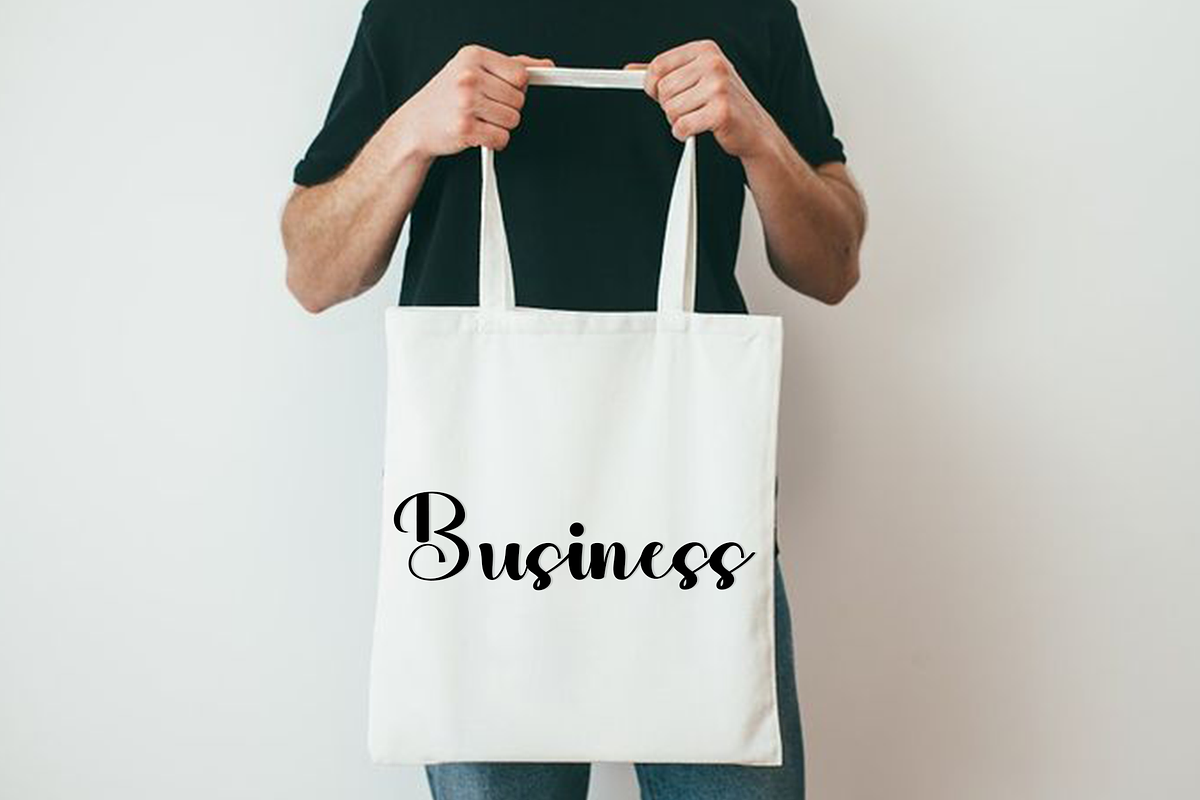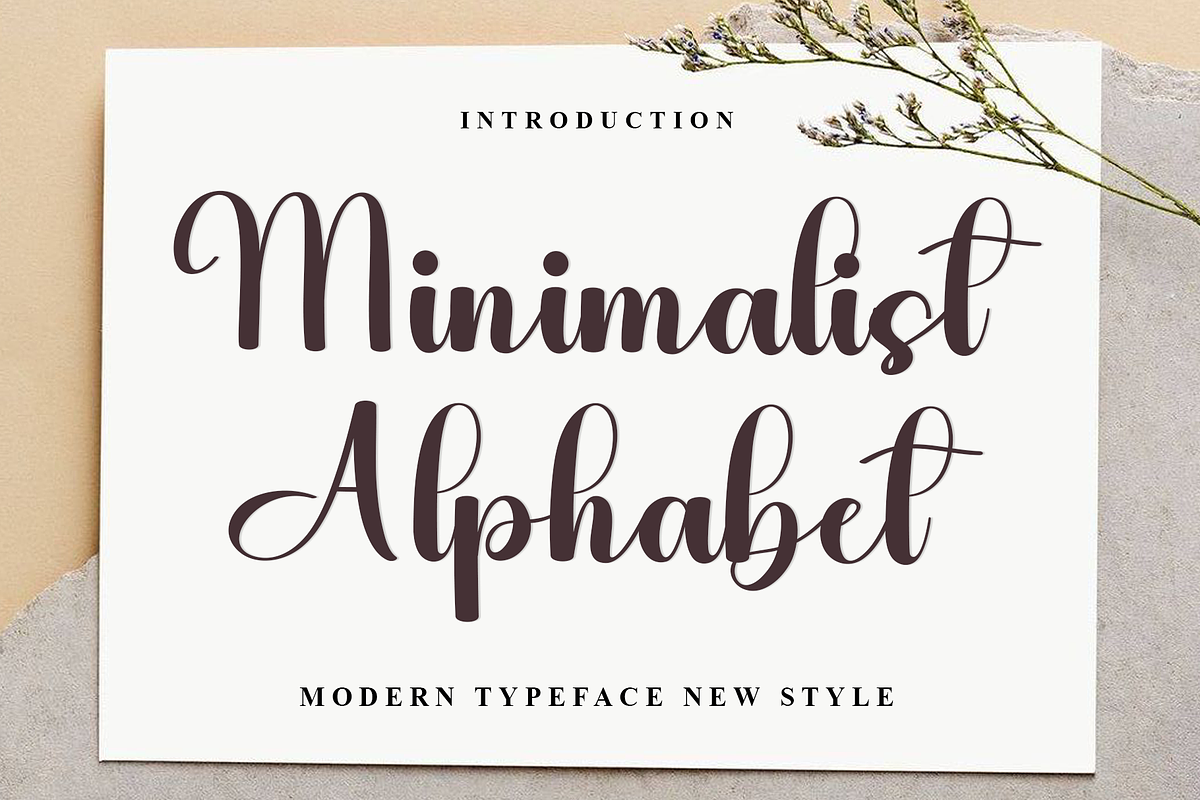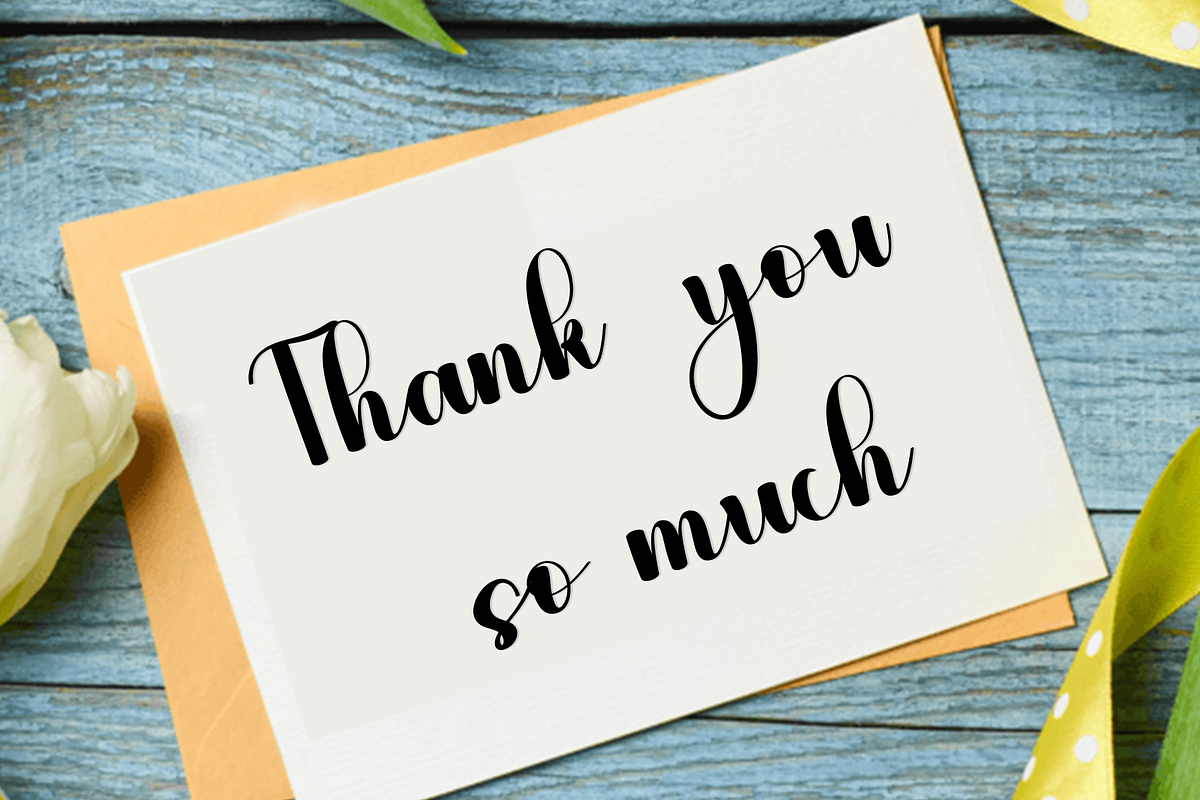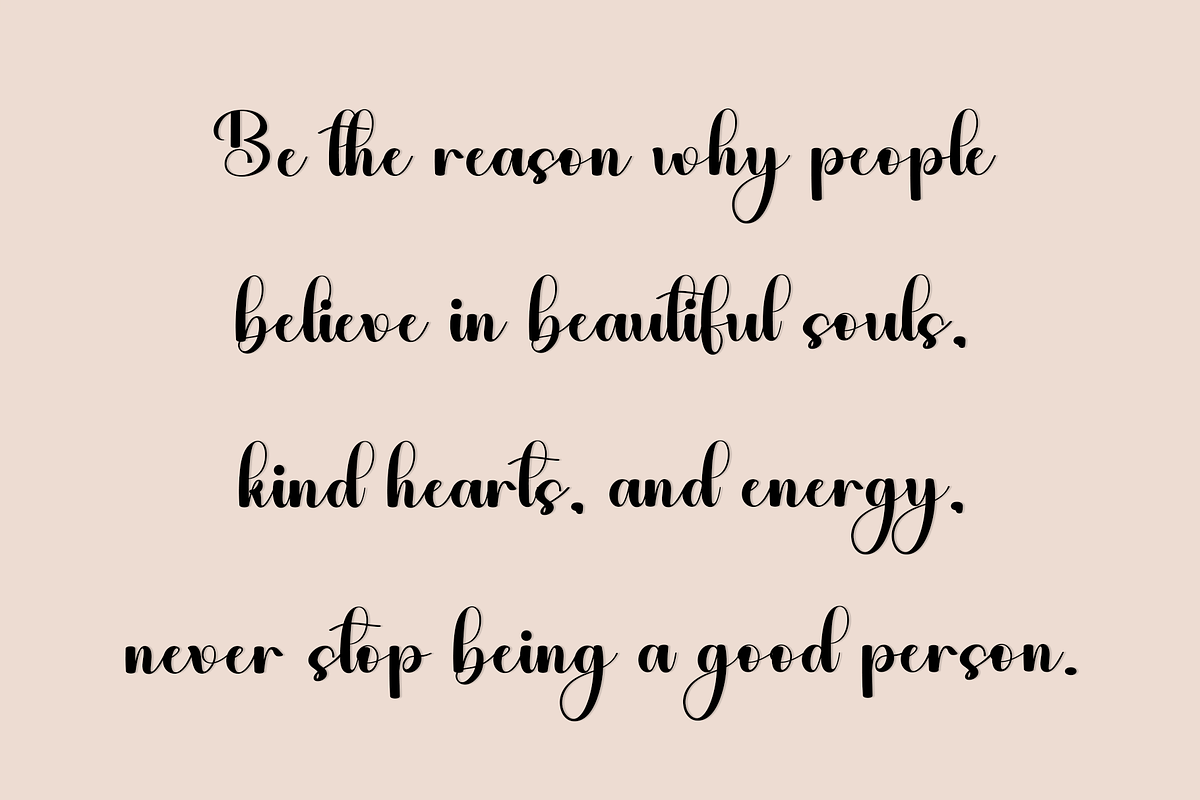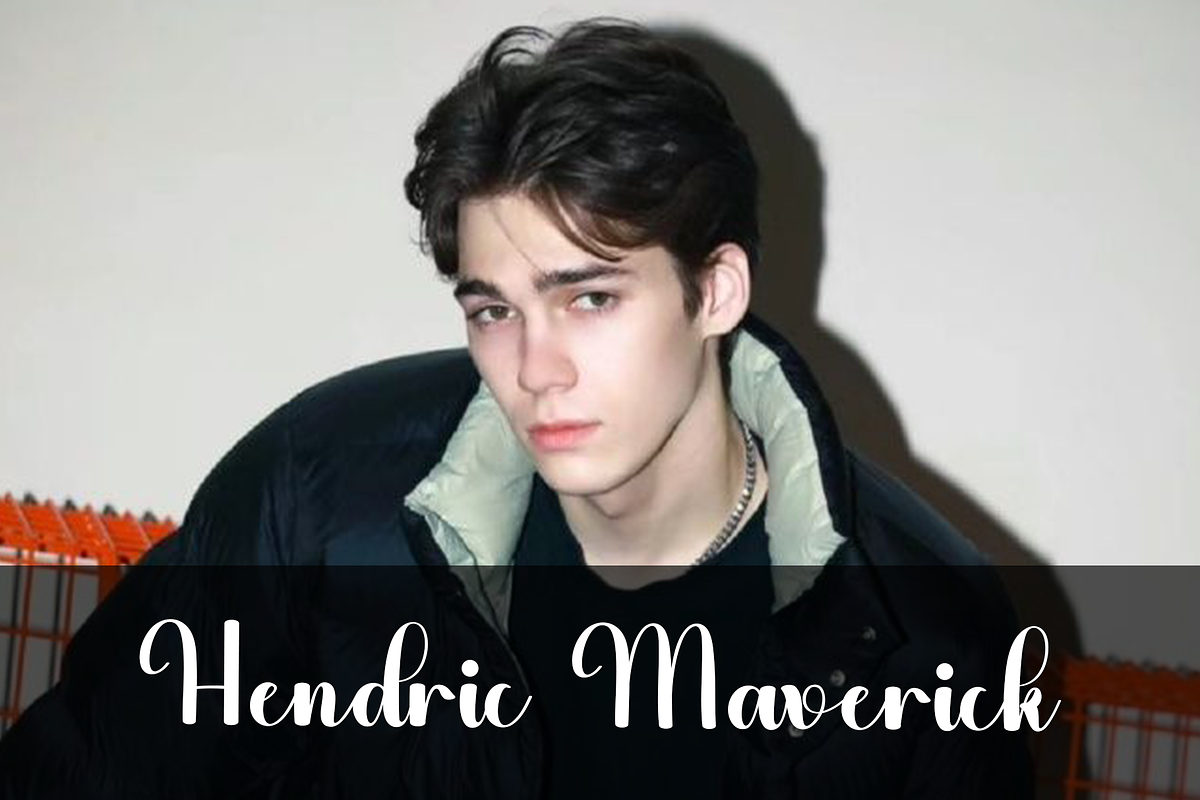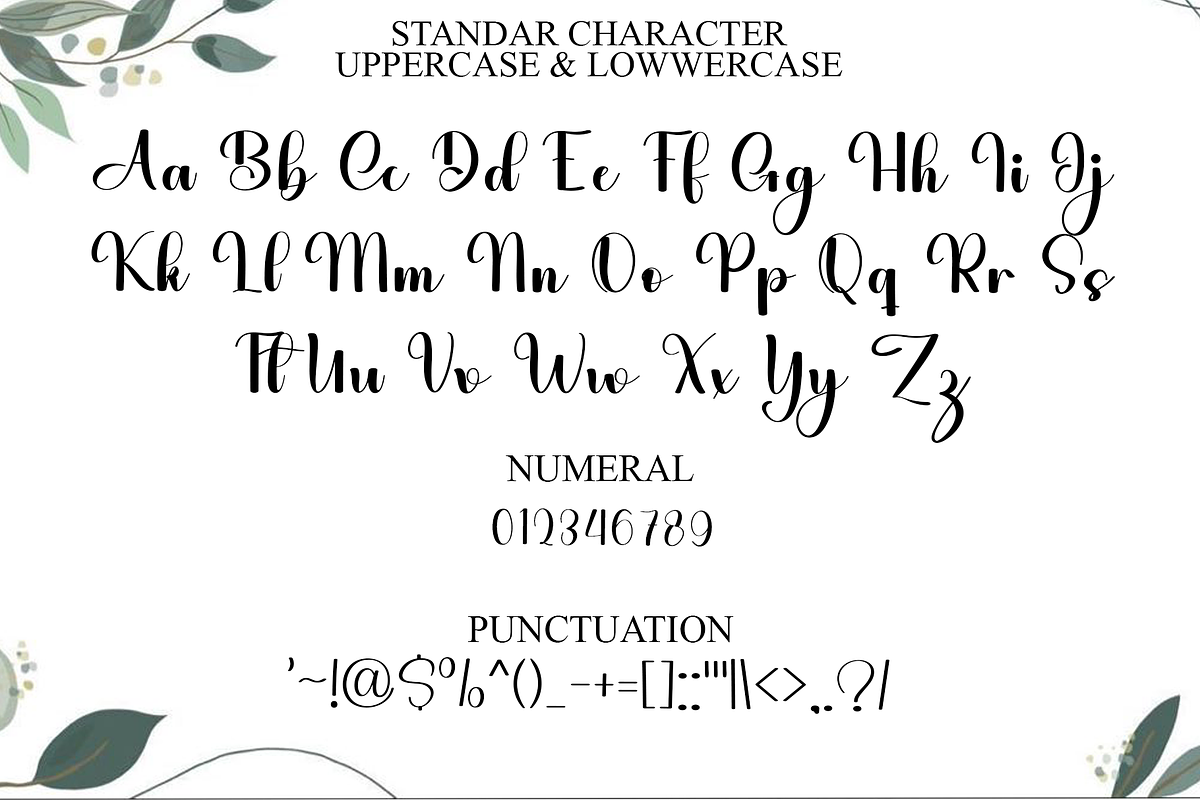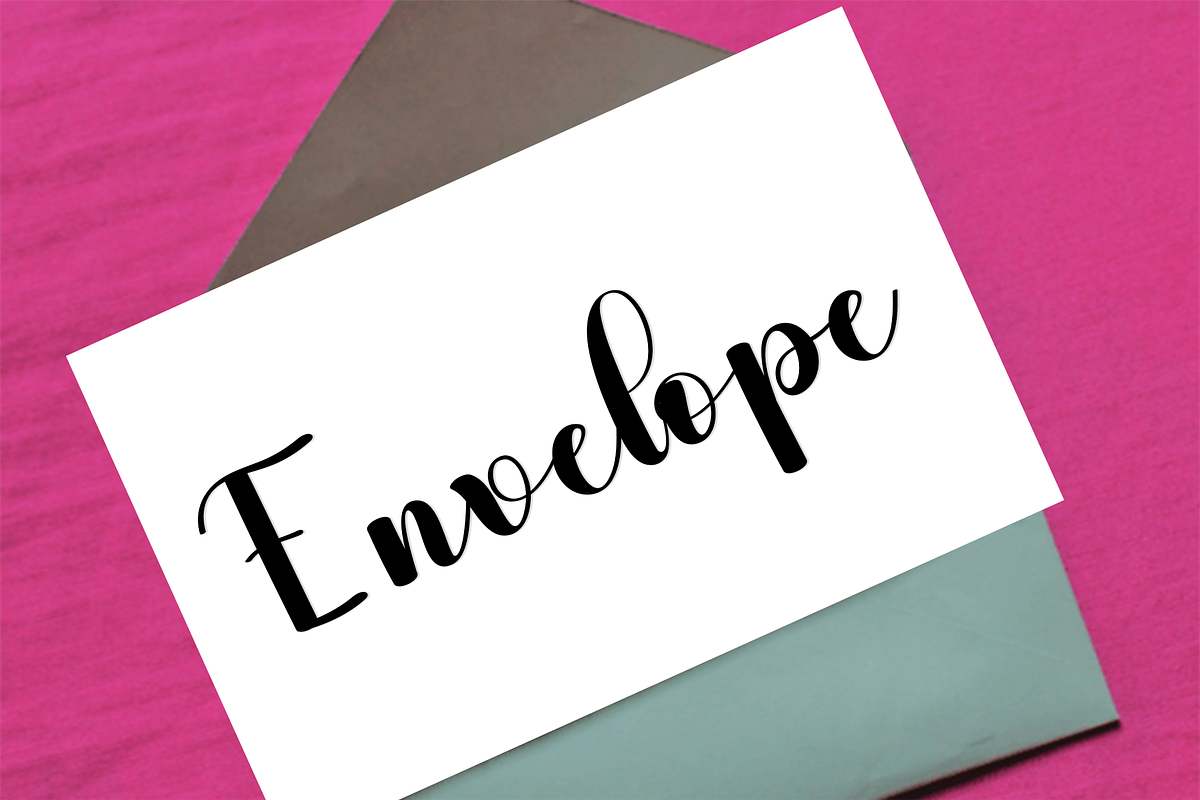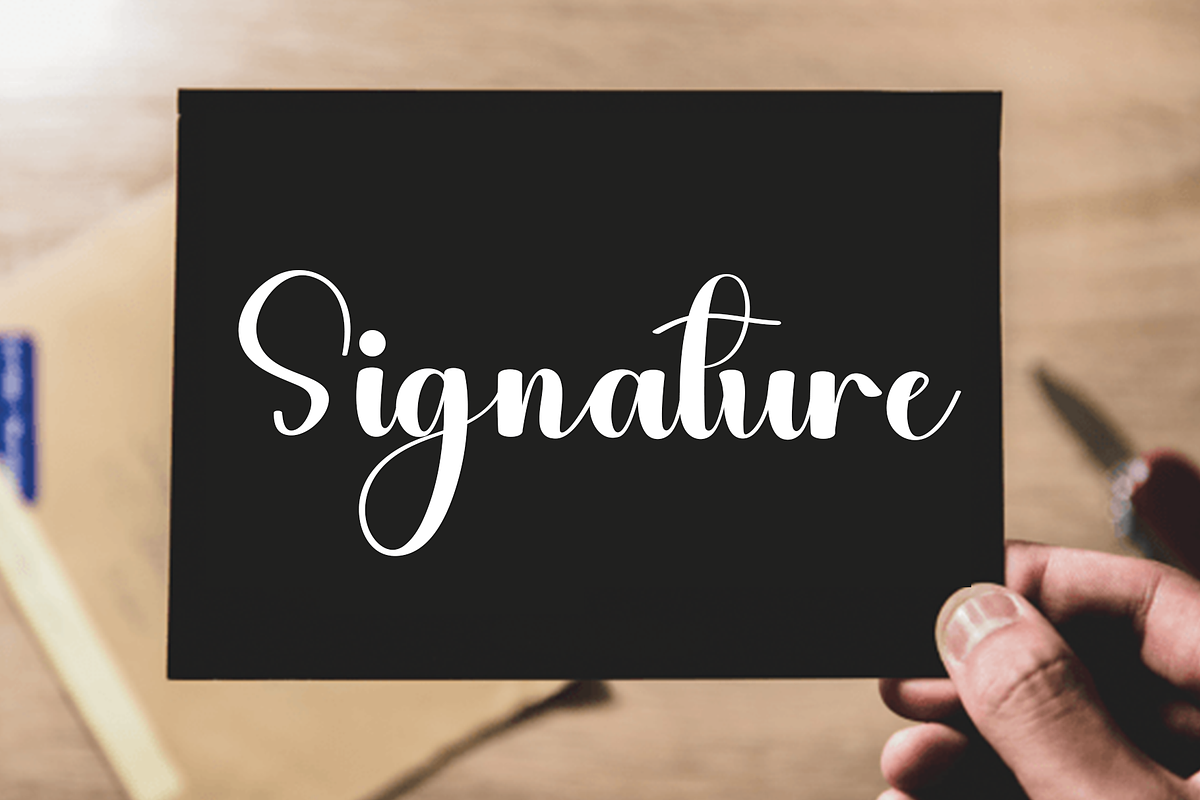
Minimalist Alphabet
is a beautiful and eye-catching font designed with a soft, unique touch. Its distinctive strokes give it a special character, making it meaningful and versatile for future use. With various characters, it’s perfect for design projects, crafts, and other creative works. Compatible with various applications, including Windows and open-source platforms, this natural font style is ideal for a wide range of products. It will enhance your designs, making them appealing to many audiences across different artistic and creative fields.